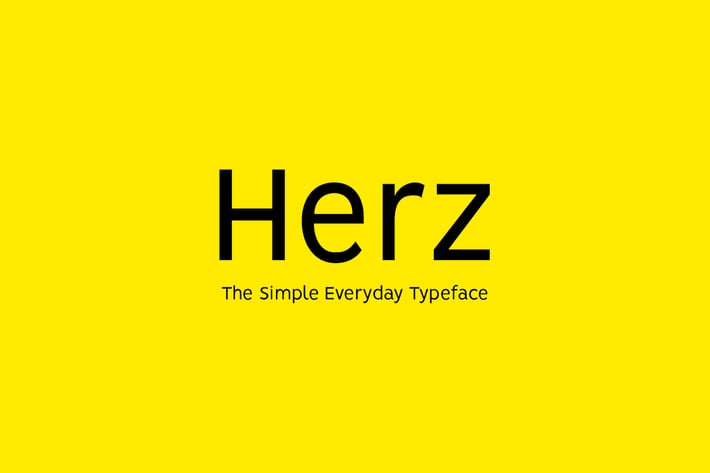
HERZ - Simple Sans Serif Typeface
HERZ is a modern Sans Serif typeface with multi-purpose use cases such as logo type, web & graphic content presentation, headline text and branding types. We have added perfection and attention to every details. The font comes with 3 weights with all formats including Web Fonts.